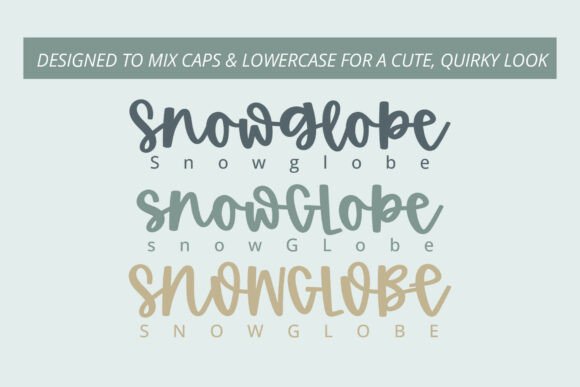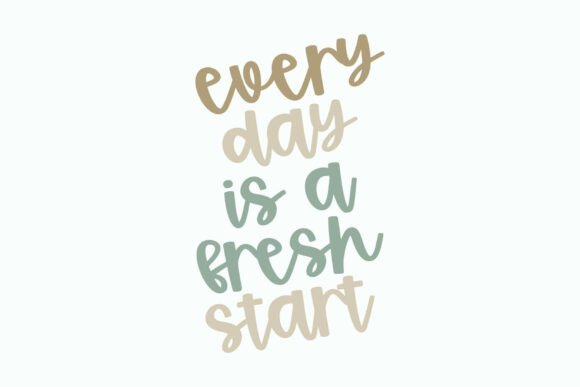
Christmas Cottage Font
Christmas Cottage is a bouncy, quirky, and playful script that loves to mix CAPS and lowercase for a cute, quirky look.
Christmas Cottage is a sweet and perfectly playful script font that evokes the casual, cozy, and charming feeling of handwritten notes left by Santa or a loved one during the festive season.
This handwritten typeface features a rounded, friendly construction and a slightly bouncy baseline, ensuring it remains cheerful and highly approachable. Its clean curves and medium weight make the Christmas Cottage typeface excellent for crafters, digital artists, and anyone creating personalized holiday goods. It is an ideal Christmas Cottage font for labels, gift tags, holiday greeting cards, and social media quotes, bringing a sense of warmth and genuine, handmade appeal.
The font’s simplicity ensures high legibility, making this playful script a reliable choice for all your festive projects.